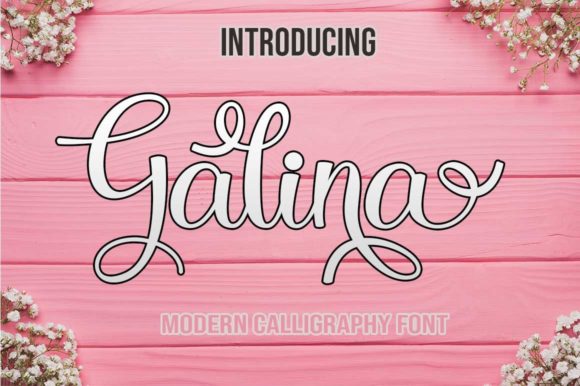
Introducing Galina Font, a Script Tattoo Masterpiece: Experience the Dance of Elegance and Beauty!
Elevate your designs with Galina Font, a stunning and romantic calligraphy typeface that will ignite a spark of luxury in all your creative endeavors. Its graceful characters dance effortlessly along the baseline, like a ballet of inked artistry.
Galina Font: The Perfect Partner for Your Tattoo Dreams
Unleash your inner artist with Galina Font, the ultimate font for script tattoos. Its meticulously crafted letters and swashes flow together seamlessly, capturing the essence of emotion and personal expression. Every stroke and curve is designed to create a visual symphony that will turn your tattoo dreams into a reality.
Unleash Your Creativity with Galina Font
With Galina Font, the possibilities are endless. Create captivating logos and branding that exude elegance, design enchanting invitations and cards that leave a lasting impression, or craft social media posts that will make your audience swoon. Let Galina Font be your muse, as it transforms your words into works of art.
Galina Font: A Symphony of Elegance and Beauty
Galina Font is more than just a font; it's an experience. Its PUA encoding makes accessing glyphs and swashes a breeze, ensuring that your creative vision shines through. With Galina Font, you'll have a symphony of elegance and beauty at your fingertips, ready to orchestrate a visual masterpiece.
Indulge in the Enchanting World of Galina Font
Galina Font is an invitation to let your creativity soar. Its romantic and gorgeous calligraphy typeface will ignite a spark in your design projects, leaving them with a touch of timeless elegance. Don't settle for ordinary fonts - embrace the magic of Galina Font and watch your designs come alive.